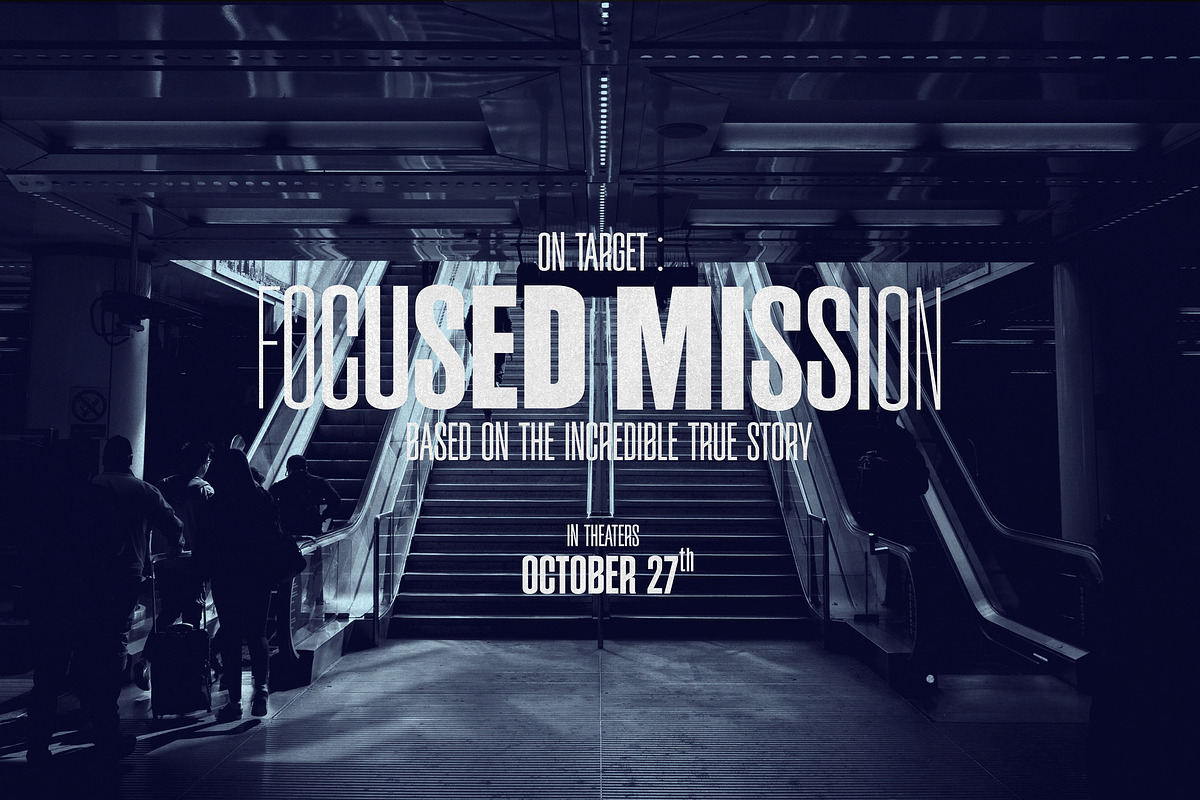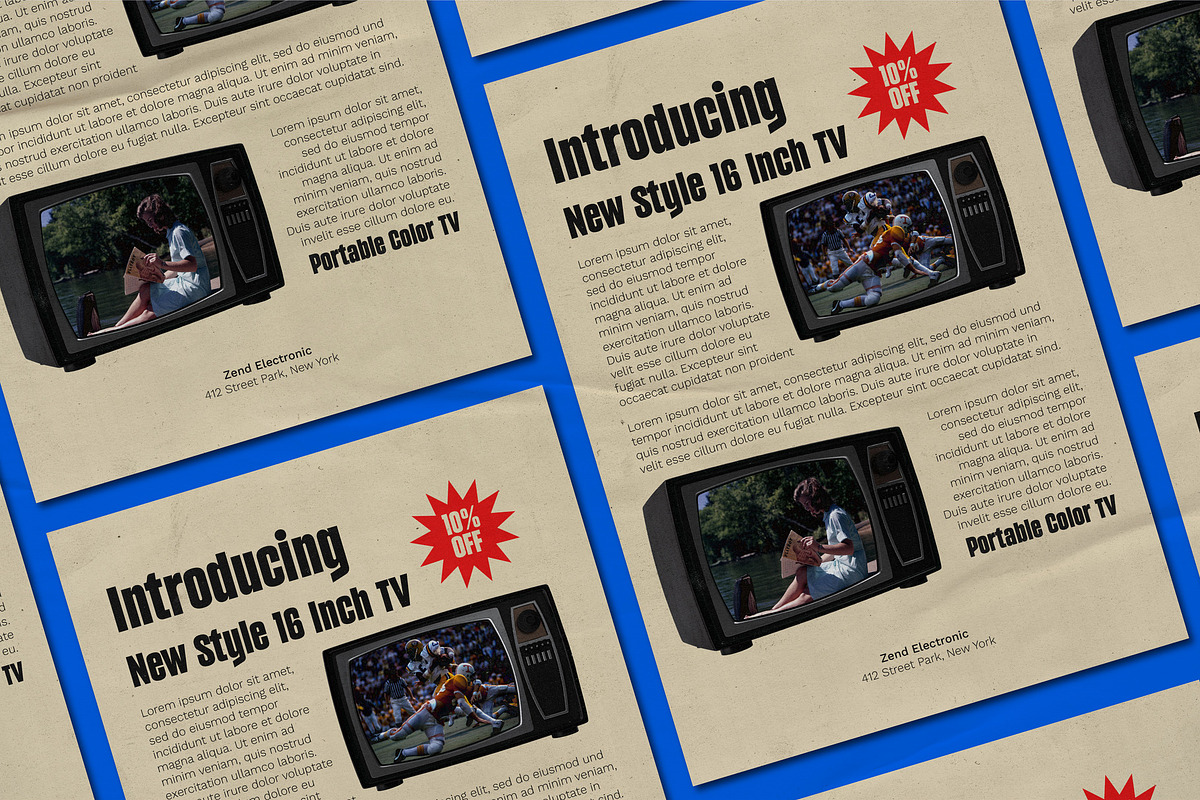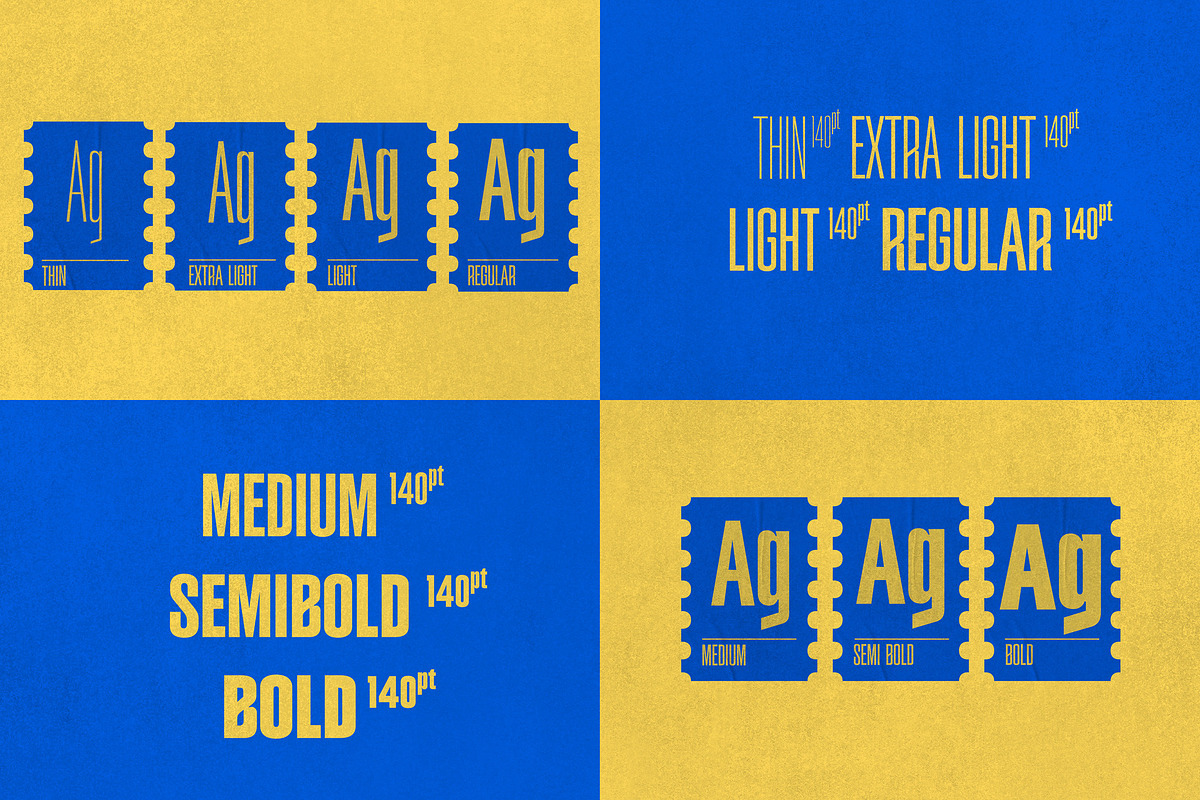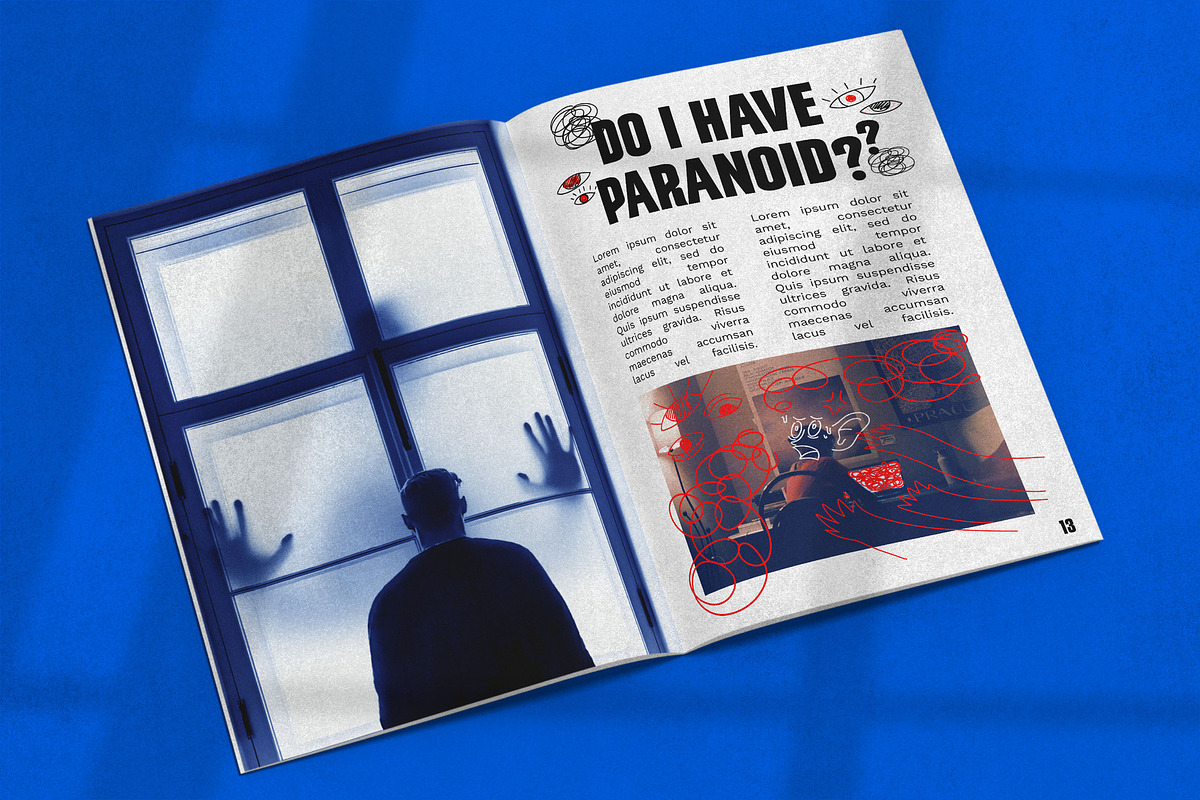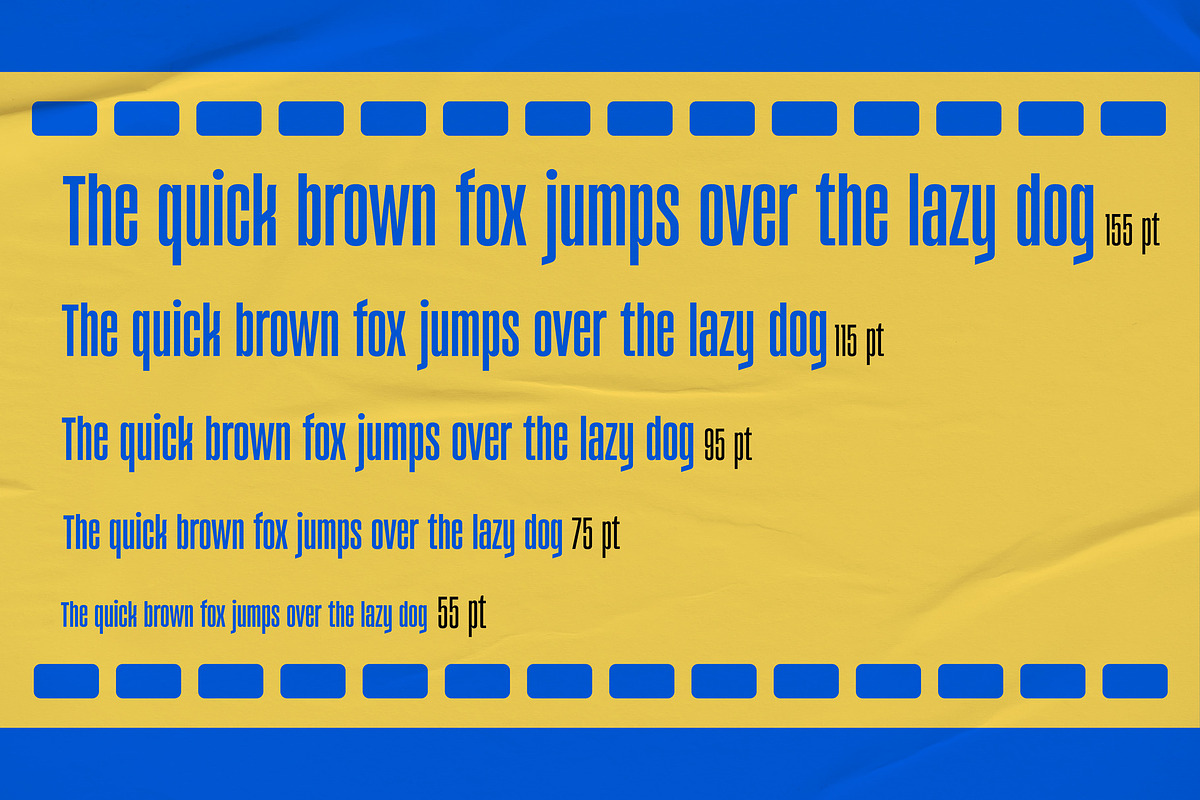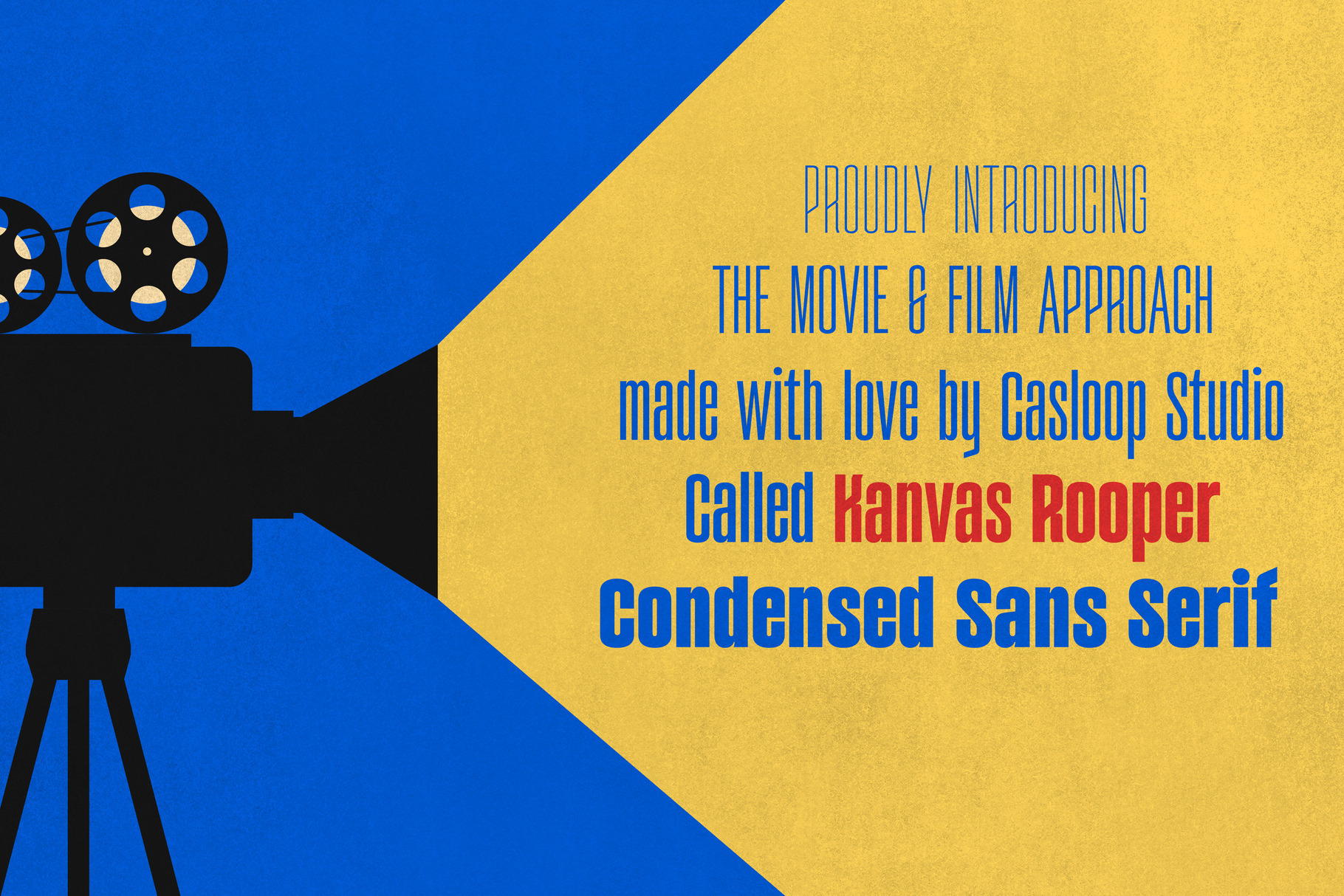
Kanvas Rooper Movie Display 7 Fonts
Elevate Your Brand with Kanvas Rooper
The Film and Movie Typeface for Professional Excellence Presenting Kanvas Rooper, the Condensed Sans Serif font designed for businesses aiming for excellence. Tailored for impact, this typeface effortlessly captures attention and is perfect for projects demanding a touch of Brave and Bold Shape.
Brave and Bold Condensed Sans Serif Design: Immerse yourself in the sophistication of Kanvas Rooper's Condensed Sans Serif aesthetic, a favorite among business professionals.
Business Versatility: Ideal for a wide array of projects, ensuring your designs make a lasting impression.
Why Choose Kanvas Rooper?
Brand Excellence: Enhance your brand's presence with Kanvas Rooper, strategically designed for a professional touch.
This font is perfect for branding, decoration, craft, cricut, Photoshop, Procreate, Canva, poster, magazine and events such as Christmas, Thanksgiving, St. Patricks, Valentine's Day, Birthday, Anniversary, Engagement, Wedding, and more.